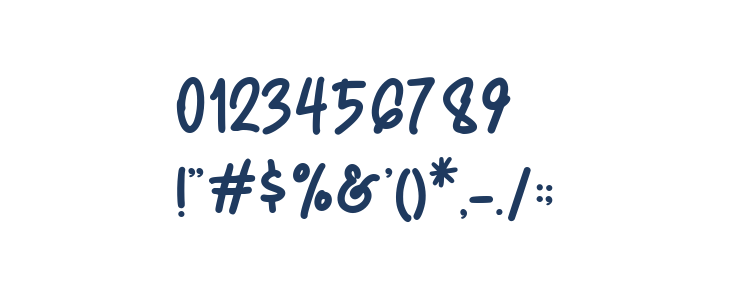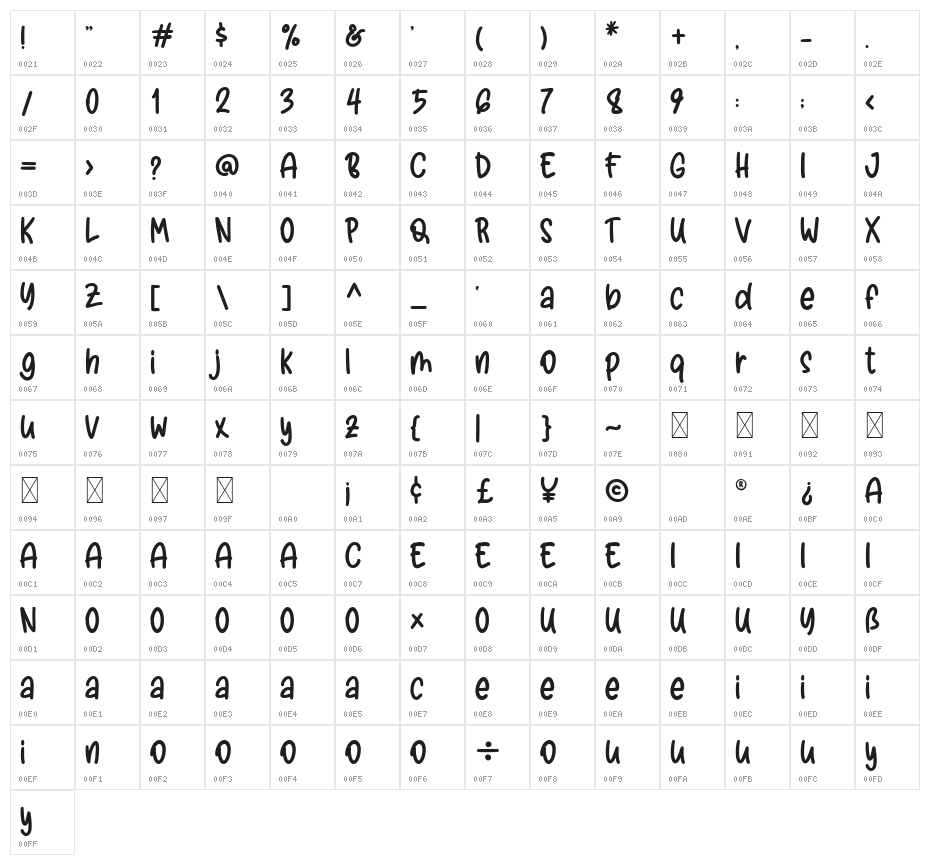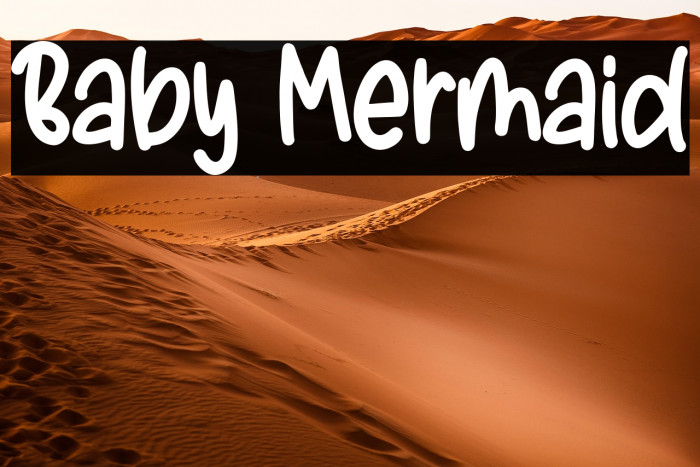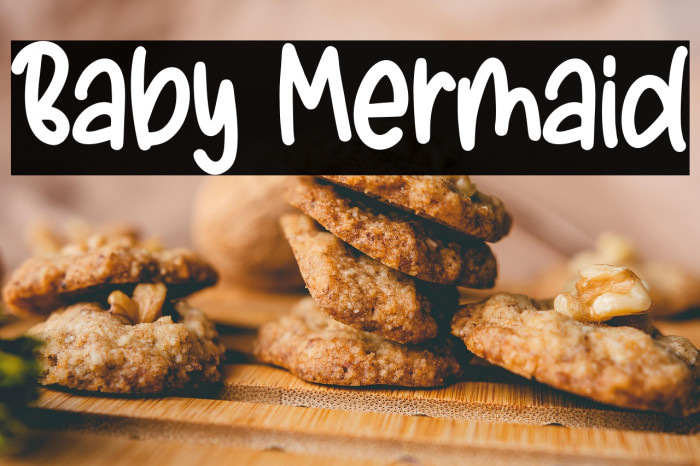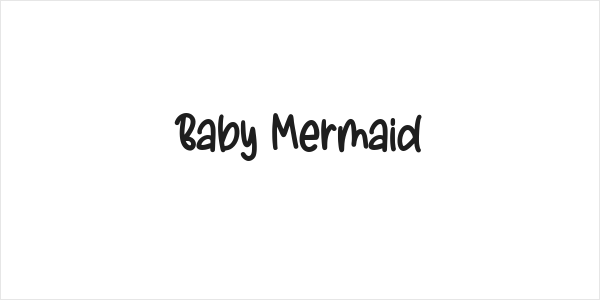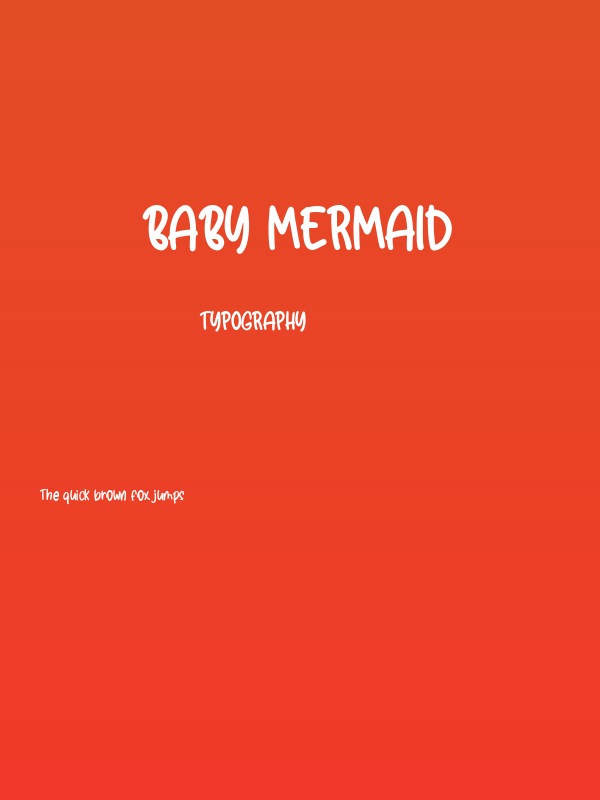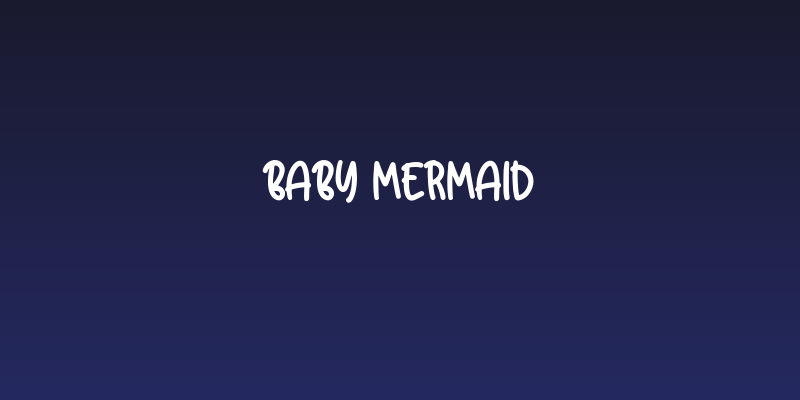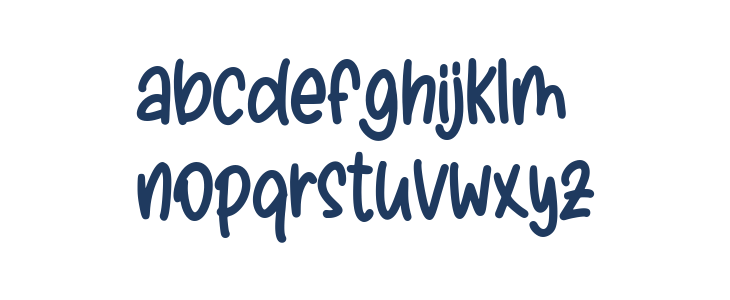
Baby Mermaid Font
Baby Mermaid Description
This playful and whimsical font features a handwritten style with bold, rounded characters. The letters have a casual and friendly appearance, making them ideal for projects that require a personal touch. The uppercase and lowercase letters are consistent in style, with a slightly bouncy baseline that adds to the font's charm. The numbers and special characters maintain the same playful aesthetic, ensuring a cohesive look across all text elements. The font's thick strokes and smooth curves give it a bold presence, while the spacing between characters is relatively tight, enhancing readability.
| Proposed Projects | Ideal for children's books, playful branding, greeting cards, and social media graphics. |